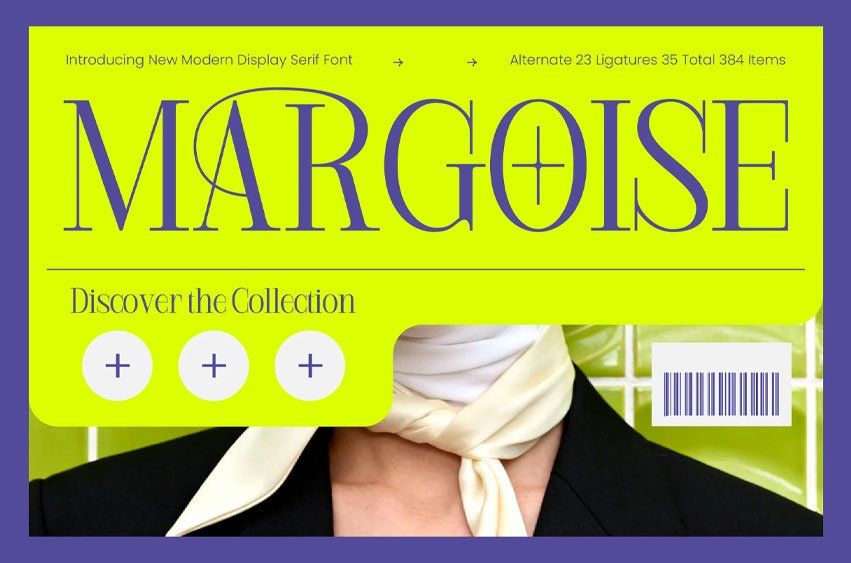
Margoise Font Elevate your creative vision with a typeface that embodies sophisticated elegance. Margoise – Modern Display Serif Font is a masterclass in high-contrast design, blending classic serif architecture with a contemporary avant-garde edge. This premium display typeface commands attention with its razor-sharp serifs and dramatic letterforms, making it an essential tool for designers seeking to deliver a bold visual statement in any high-end environment.
Expand your brand’s reach across the globe with comprehensive character support. With its extensive multilingual support, Margoise – Modern Display Serif Font adapts seamlessly across global markets, making it incredibly versatile for international projects. This robust character set ensures that your message remains consistent and impactful across various languages, providing a cohesive brand identity for multi-region campaigns and global design initiatives.